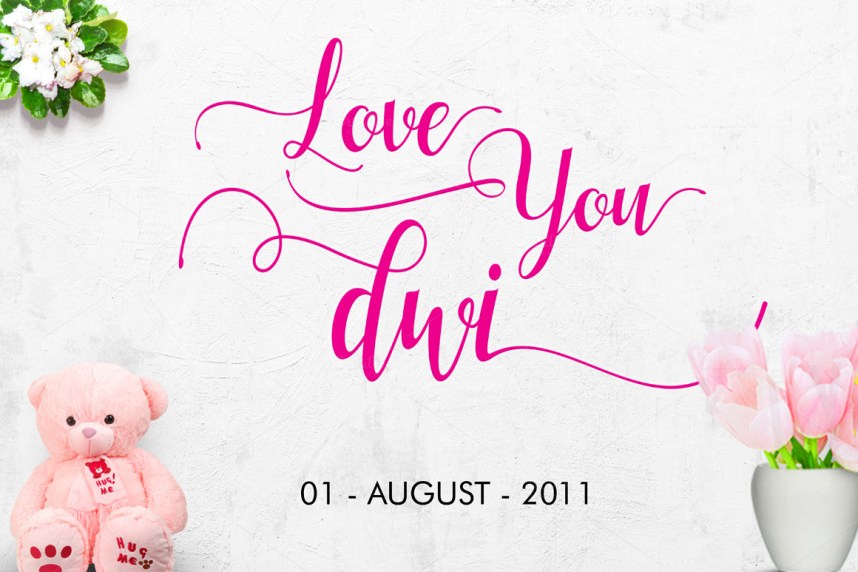
Hellifa Script Font
Hellifa Script a new fresh & modern script with a handmade calligraphy style, decorative characters and a dancing baseline! So beautiful on invitation like greeting cards, branding materials, business cards, quotes, posters, and more!!
Hellifa Script come with 774 glyphs. The alternative characters were divided into several Open Type features such as Swash, Stylistic Sets, Stylistic Alternates, Contextual Alternates, and Ligature. The Open Type features can be accessed by using Open Type savvy programs such as Adobe Illustrator, Adobe InDesign, Adobe Photoshop Corel Draw X version, And Microsoft Word. And this Font has given PUA unicode (specially coded fonts). so that all the alternate characters can easily be accessed in full by a craftsman or designer